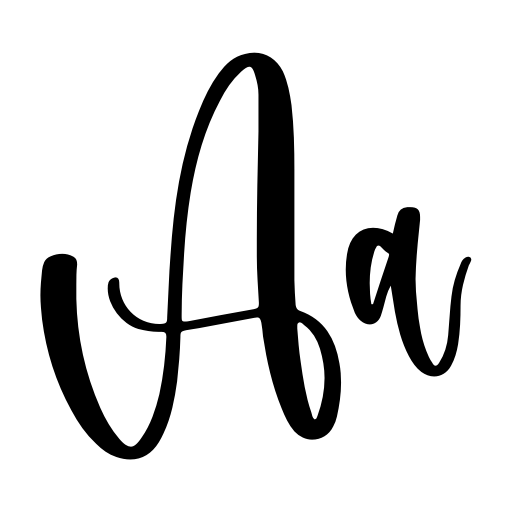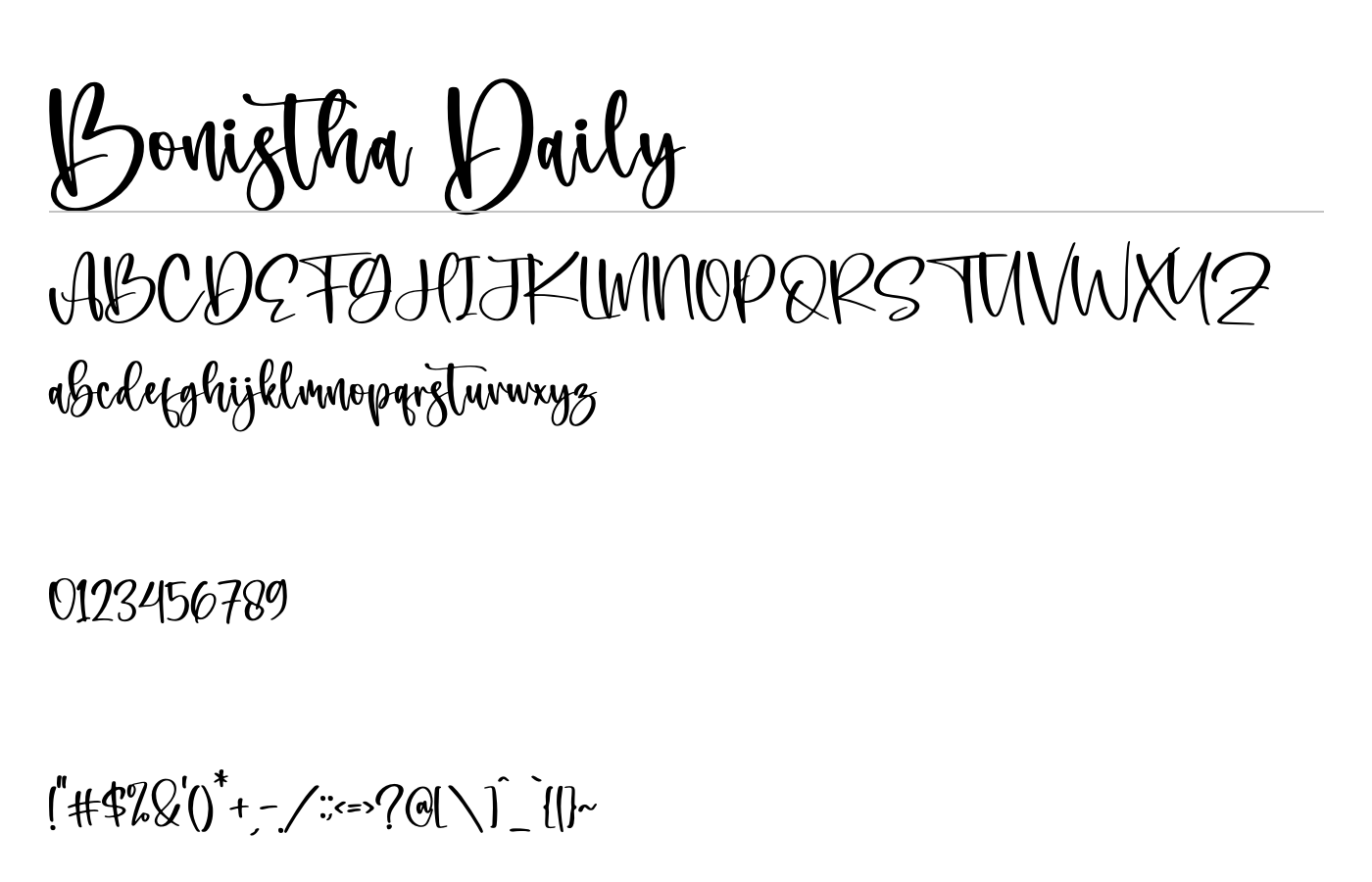
Bonistha Daily is a playful and elegant script font with a casual, handwritten feel, characterized by smooth, flowing strokes and a mix of light and medium weight. Its lively and modern letterforms make it ideal for creative branding, invitations, and social media graphics where a personal and stylish touch is desired. This font shines in headline use or decorative text, adding warmth and charm without sacrificing readability.
Bonistha Daily Font
About Bonistha Daily Font
| Font family | Bonistha Daily Font |